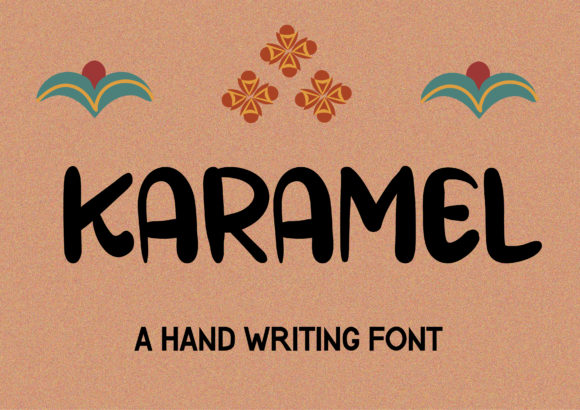
Embrace the charm of Karamel, a delightful handwritten font born from the creative heart of Nendiemeliaa. Immerse yourself in its natural and unique style, a captivating fusion of elegance and playfulness. Karamel isn't just a font; it's an invitation to express your individuality, to let your creativity dance freely across the digital canvas.
With Karamel, your designs will blossom with a touch of whimsy and warmth. Its handwritten charm lends an intimate feel to your projects, evoking a sense of personal connection and heartfelt authenticity. Whether you're crafting logos, branding materials, social media graphics, or website designs, Karamel will effortlessly elevate your creations, adding a layer of visual delight and emotional resonance.
Karamel's versatility knows no bounds. Its script style dances gracefully across wedding invitations, adding a touch of heartwarming elegance to the special day. It effortlessly enhances the allure of posters and flyers, capturing attention with its playful and inviting character. Social media posts and digital marketing campaigns come alive with Karamel's charm, drawing your audience into a world of visual intrigue and engagement.
Unleash your imagination and let Karamel's handwritten splendor transform your creative visions into reality. Its boundless possibilities await your exploration. Dive into the world of Karamel and discover a font that not only beautifies your designs but also captivates hearts and ignites imaginations. Embrace the power of Karamel, and let your creativity soar to new heights.